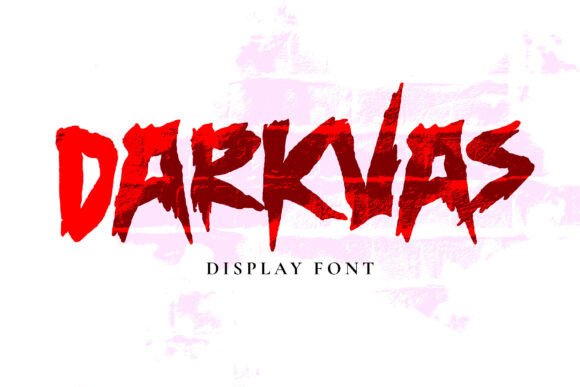
Darkvas Font: The Ultimate Choice for Spooky and Creepy Designs
Are you looking for a font that can add a touch of spookiness and creepiness to your designs? Look no further than the Darkvas font. This display font is perfect for creating eye-catching and eerie designs that are sure to leave a lasting impression. In this article, we’ll take a closer look at the Darkvas font, its features, and how you can use it to create amazing designs for Halloween and other occasions.
What is Darkvas Font?
Darkvas is a scary, creepy, quirky, and cool display font that is perfect for creating spooky and eerie designs. It is a unique font that features a bold and distressed style, making it perfect for adding a touch of horror and suspense to your designs. The font is designed to be versatile and can be used for a wide range of projects, from party invitations to social media posts.
Key Features of Darkvas Font
- Scary and Creepy Design: The Darkvas font features a bold and distressed style that is perfect for creating spooky and eerie designs.
- Quirky and Cool: The font has a quirky and cool style that is perfect for adding a touch of personality to your designs.
- Display Font: The Darkvas font is a display font, making it perfect for headlines, titles, and other display text.
How to Use Darkvas Font
The Darkvas font is perfect for a wide range of projects, including:
- Halloween Party Invitations: Add a touch of spookiness to your Halloween party invitations with the Darkvas font.
- Cards and Greetings: Use the font to create creepy and quirky cards and greetings for friends and family.
- Social Media Posts: Add a touch of horror and suspense to your social media posts with the Darkvas font.
- Graphic Designs: Use the font to create eye-catching and eerie graphic designs for clients or personal projects.
Tips and Tricks for Using Darkvas Font
Here are some tips and tricks for using the Darkvas font:
- Experiment with Different Colors: The Darkvas font looks great in a variety of colors, so don’t be afraid to experiment and find the perfect color for your design.
- Use it with Other Fonts: The Darkvas font pairs well with other fonts, so try using it with a sans-serif font for a unique look.
- Add Texture and Patterns: Add texture and patterns to your design to give it a more creepy and eerie feel.
Benefits of Using Darkvas Font
Here are some benefits of using the Darkvas font:
- Unique and Eye-Catching: The Darkvas font is unique and eye-catching, making it perfect for creating designs that stand out.
- Versatile: The font is versatile and can be used for a wide range of projects.
In conclusion, the Darkvas font is a great choice for anyone looking to add a touch of spookiness and creepiness to their designs. With its unique and eye-catching style, versatility, and ease of use, it’s perfect for creating a wide range of projects, from party invitations to social media posts. So why not give it a try and see what amazing designs you can create?